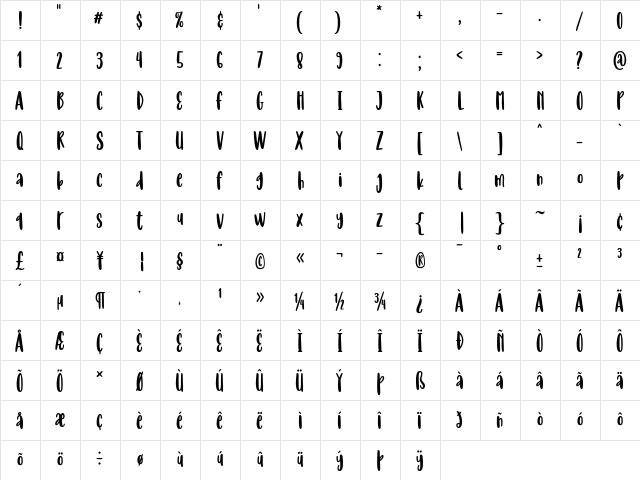
Literally Natural Regular
| Foundry | 7NTypes |
| Designer | Situjuh Nazara |
Design Context for Literally Natural Typeface
Literally Natural is a composed and adaptable typeface that performs quietly and consistently across a wide range of design contexts.